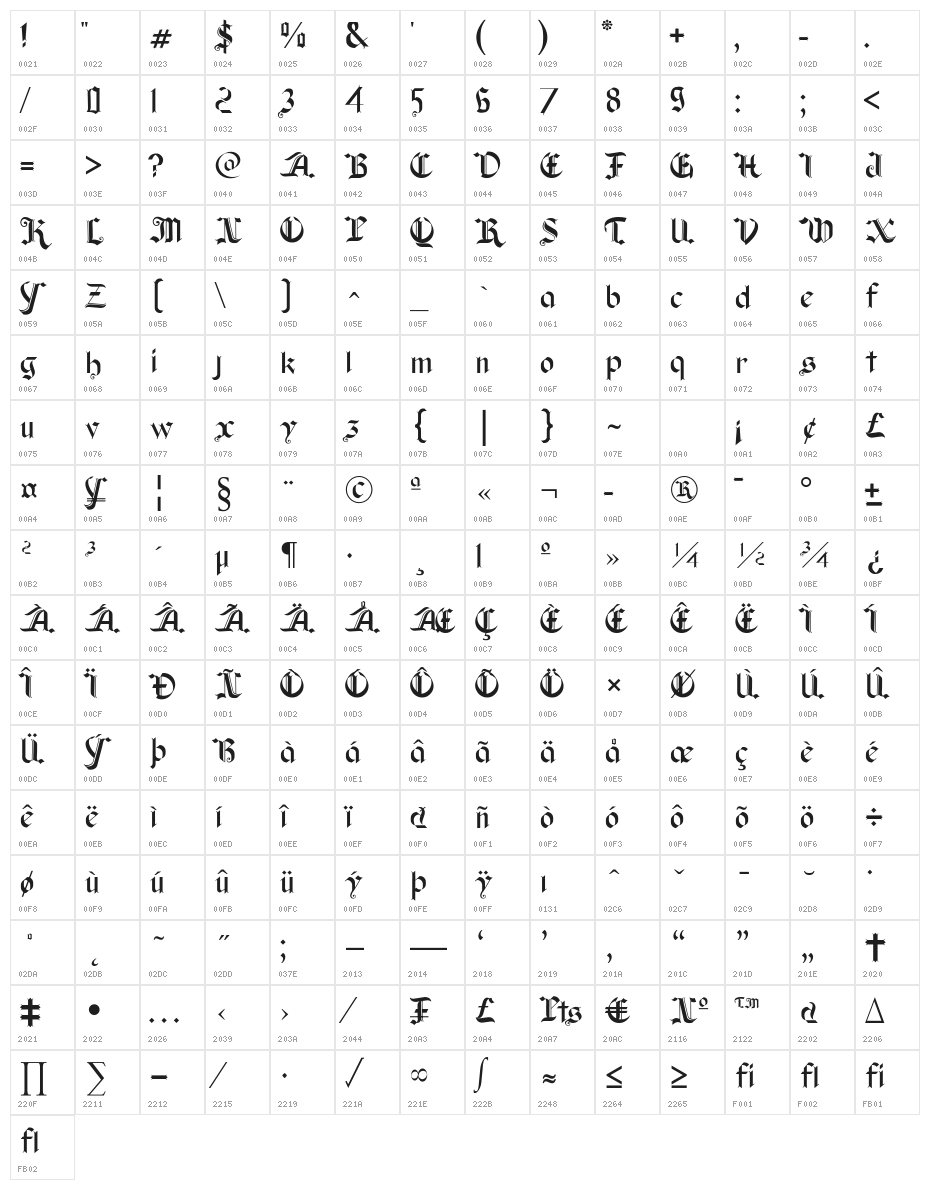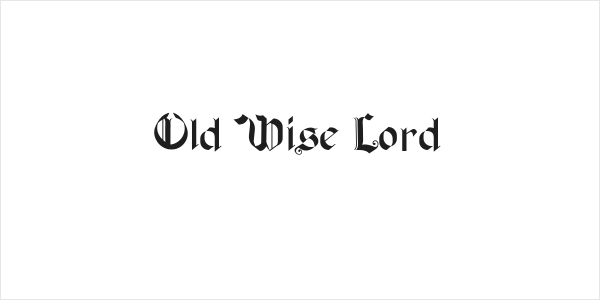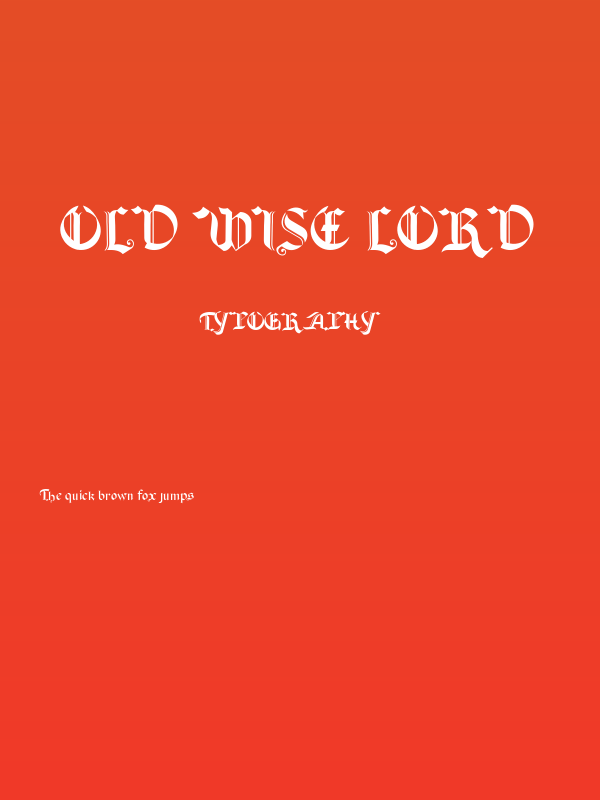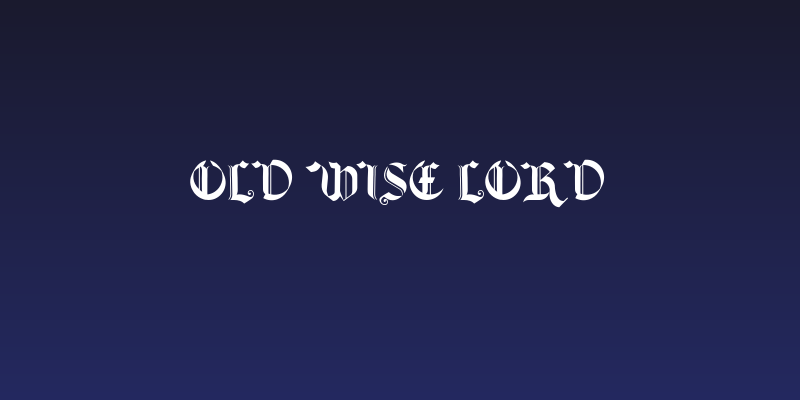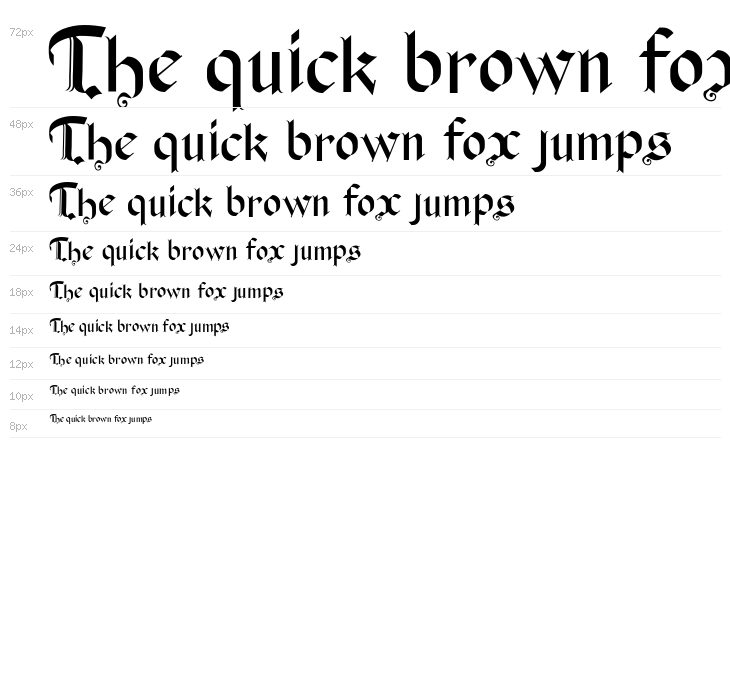
Old Wise Lord Font
Old Wise Lord Description
This font embodies a classic blackletter style, characterized by its ornate and intricate design. The uppercase letters feature sharp, angular lines with decorative flourishes, while the lowercase letters maintain a similar aesthetic with slightly softer curves. The numerals are bold and consistent with the overall gothic theme, providing a cohesive look. Special characters are equally elaborate, adding to the font's medieval charm. The strokes are thick, with high contrast between the thick and thin parts, enhancing the dramatic appearance. This font is perfect for projects that require a historical or traditional feel.
| Proposed Projects | Ideal for historical documents, medieval-themed designs, book covers, and decorative posters. |